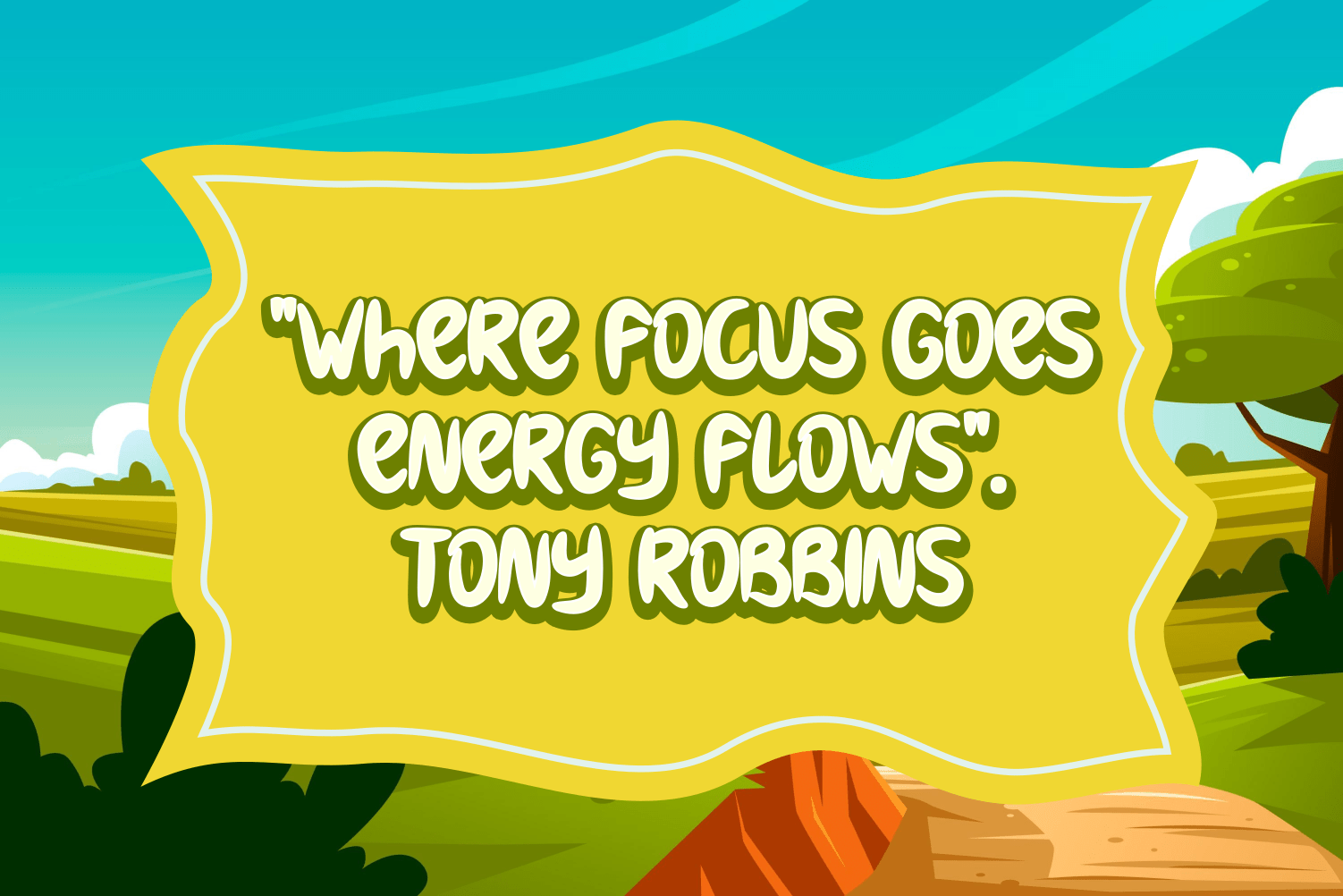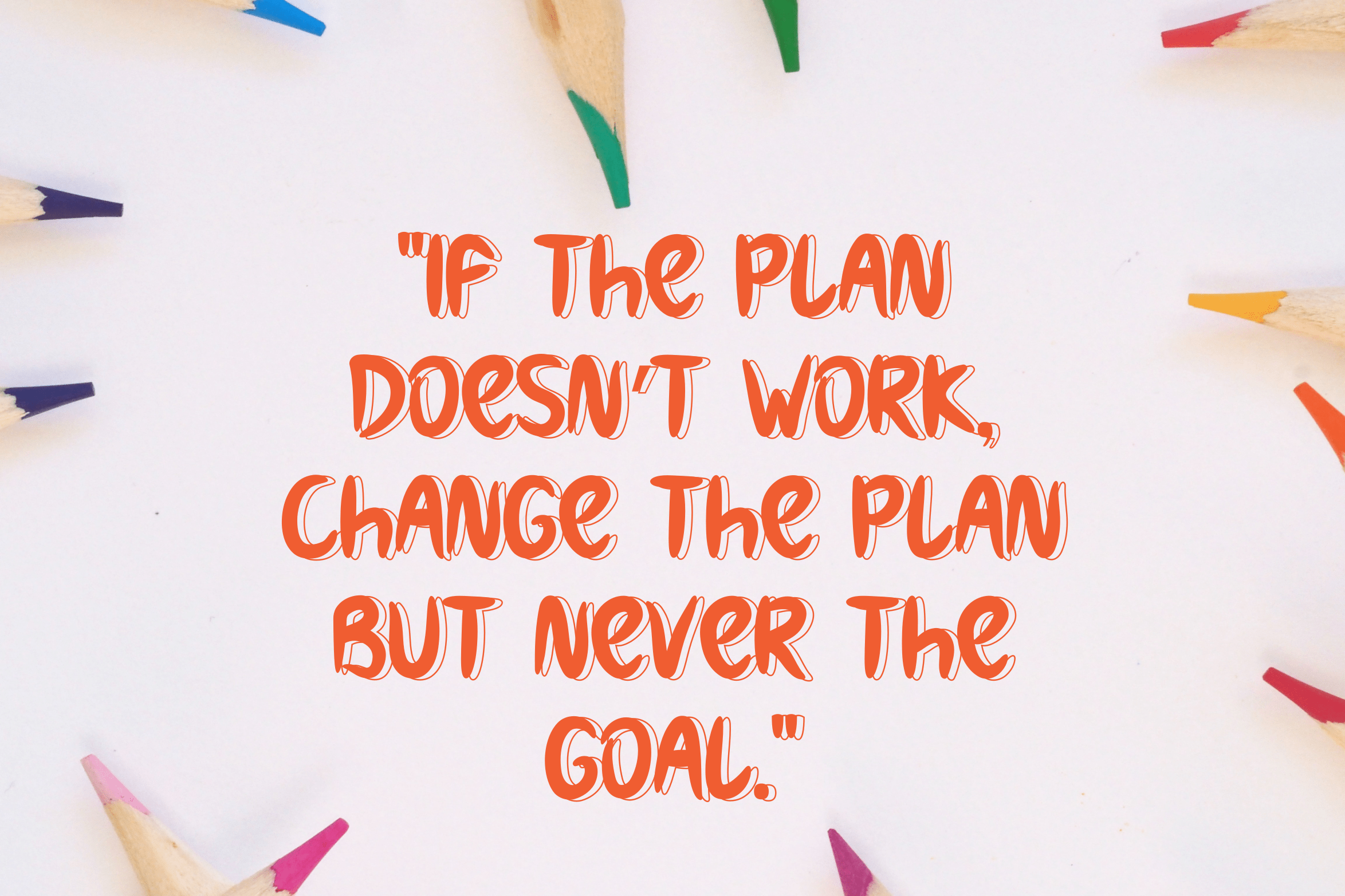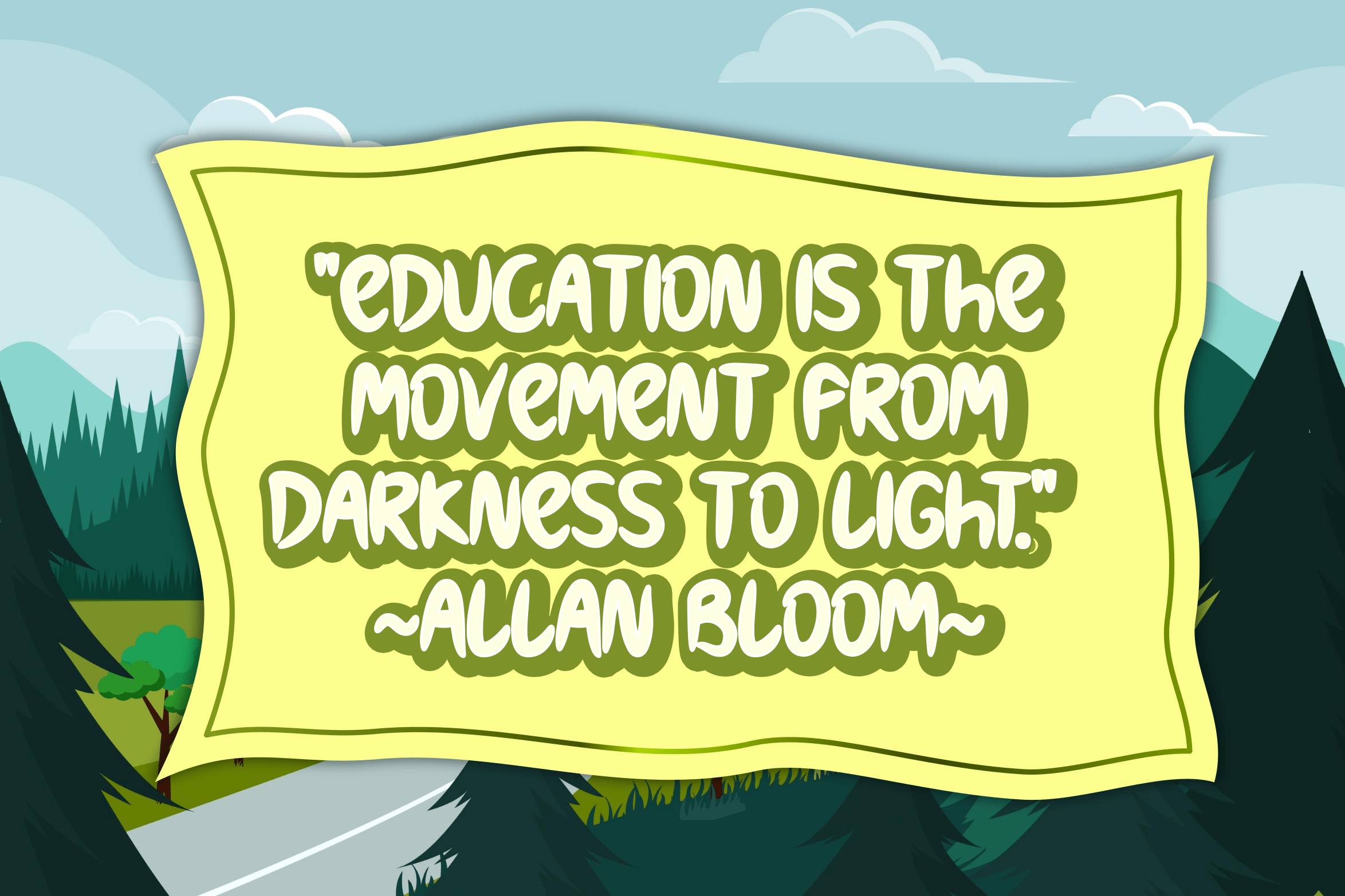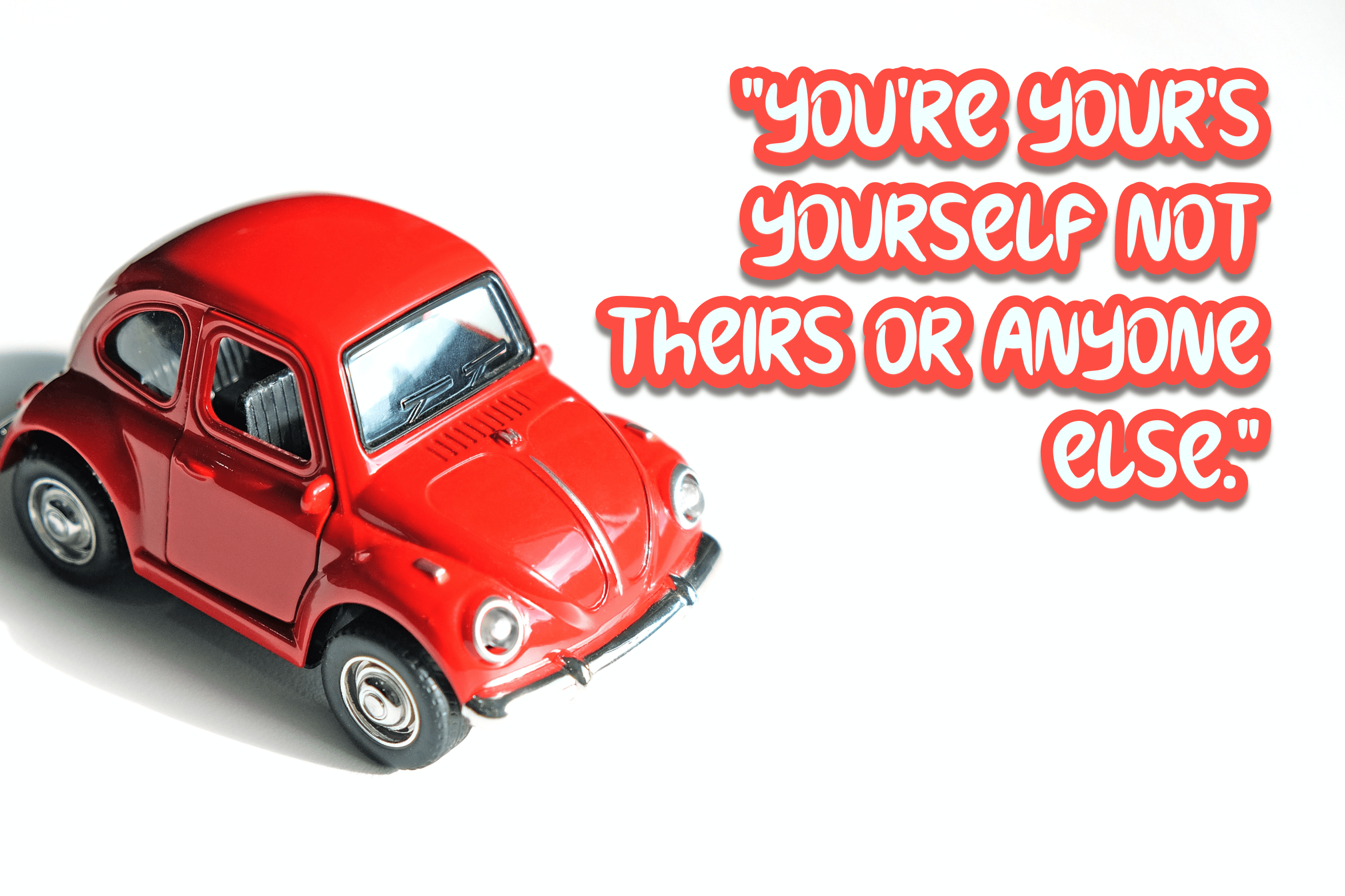
Joseta Font
Joseta Display Font
This font is sweet and fun, but also elegant. This versatile bold font can be used for a variety of applications from greeting cards to children’s crafts, book covers, children’s t-shirts, greeting cards and is guaranteed to add a sweet touch to your next design.